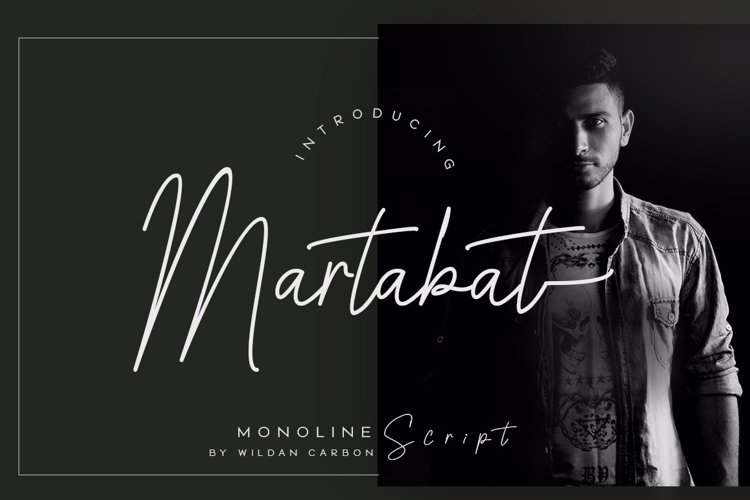
Martabat Font
Create gorgeous and timeless designs with Martabat, an interesting and unique handwritten font.
Fall in love with its incredibly stylish look and use it for logos, quotes, invitations, business cards, power point presentations, and more!